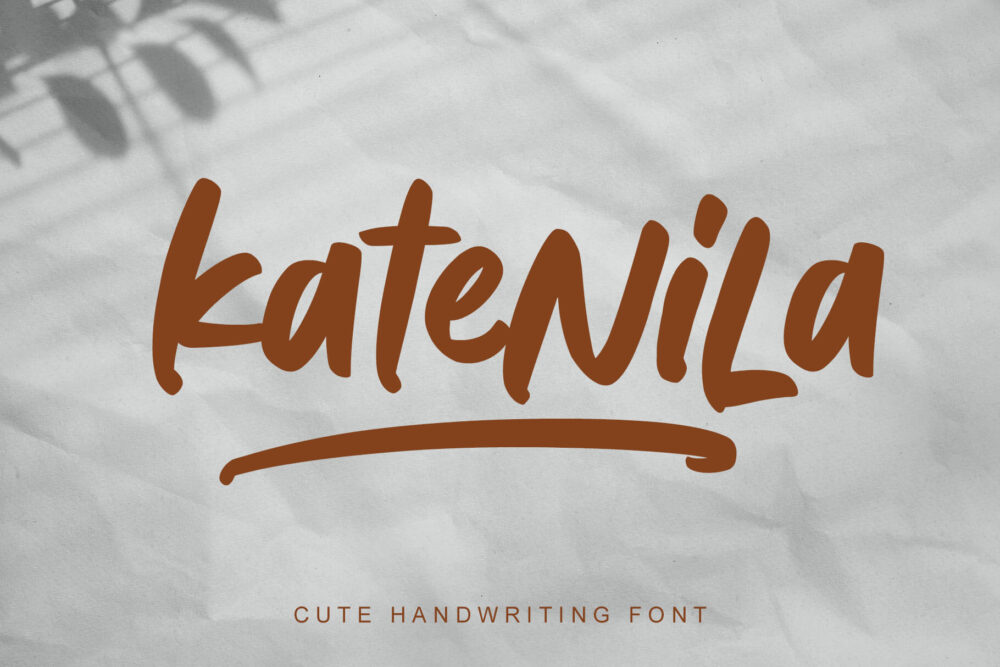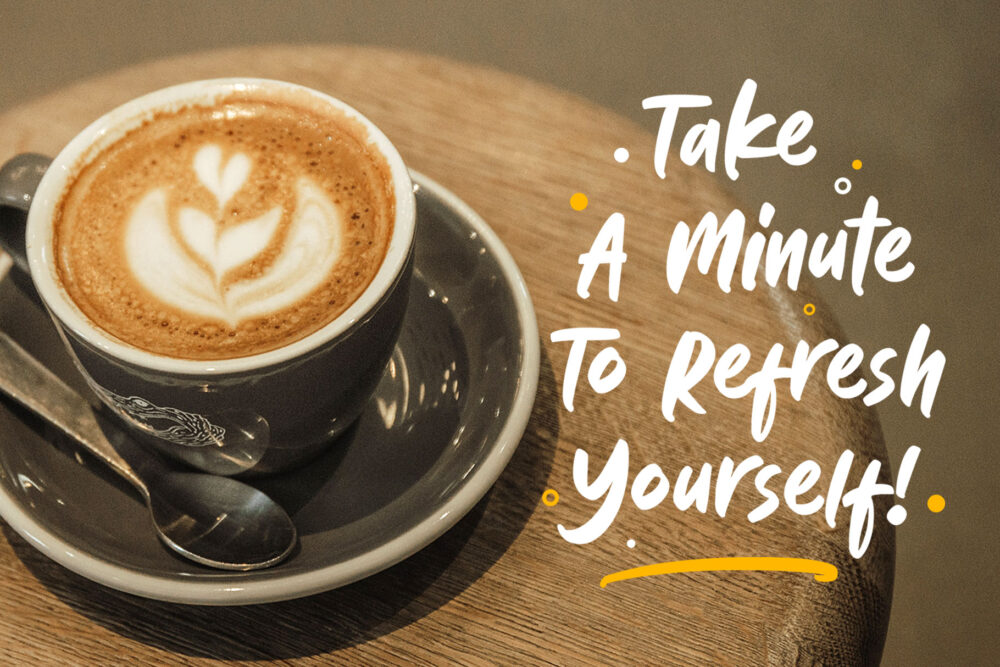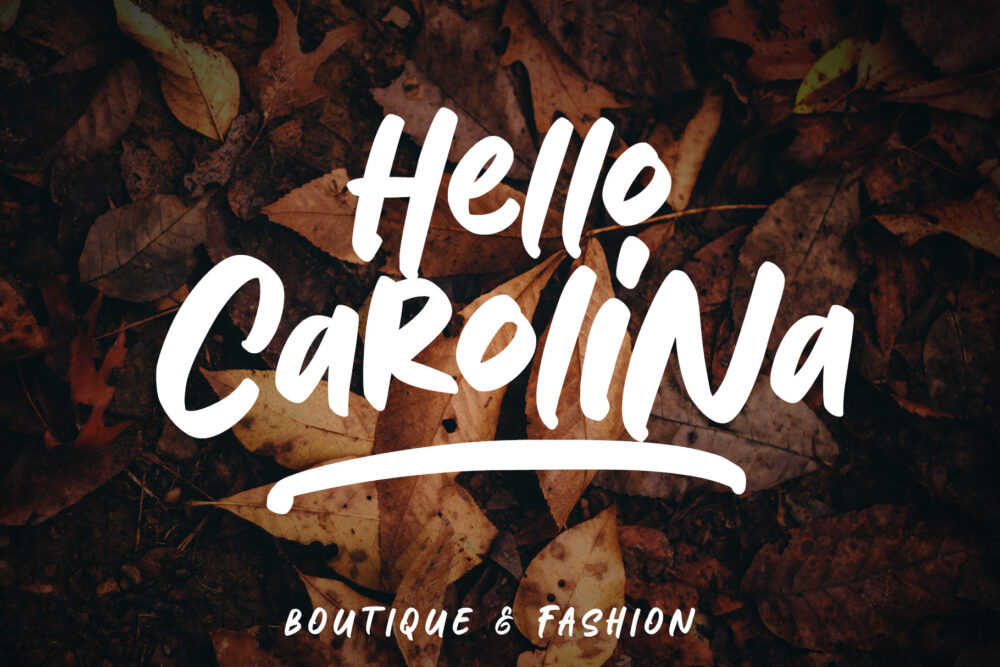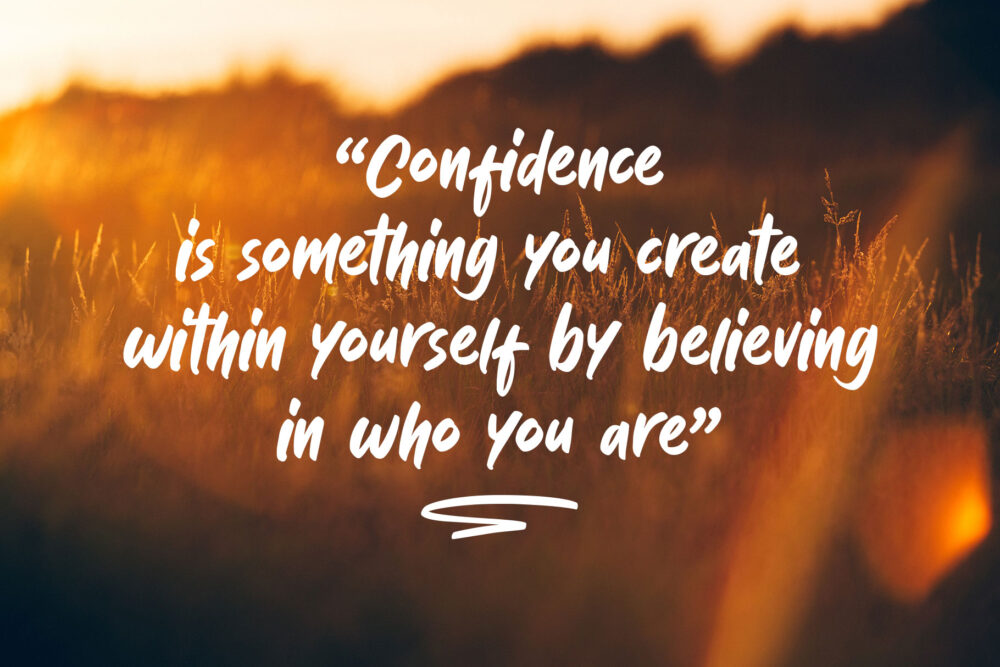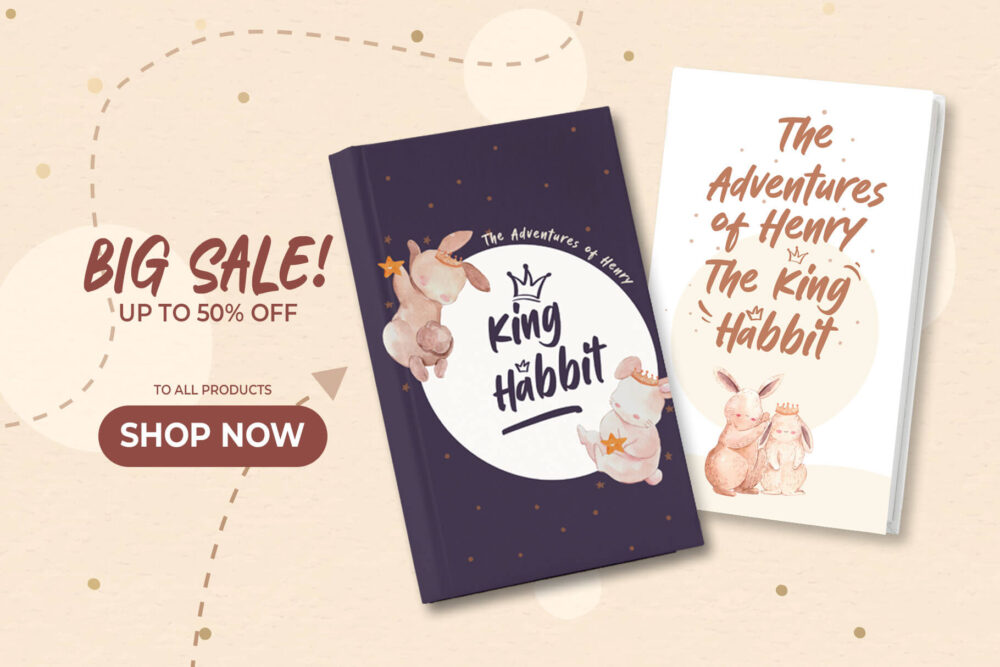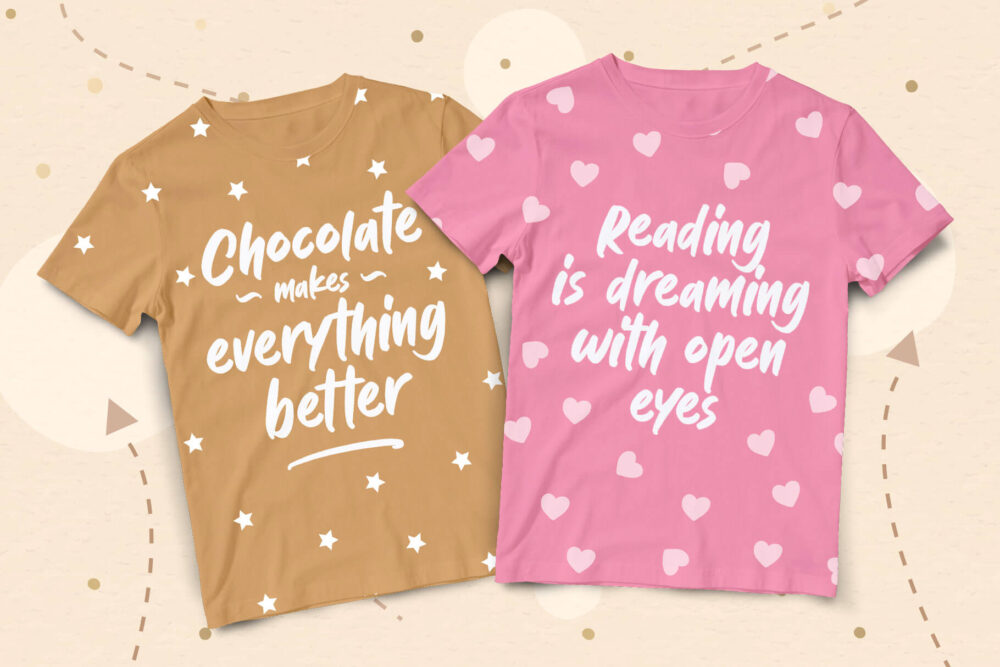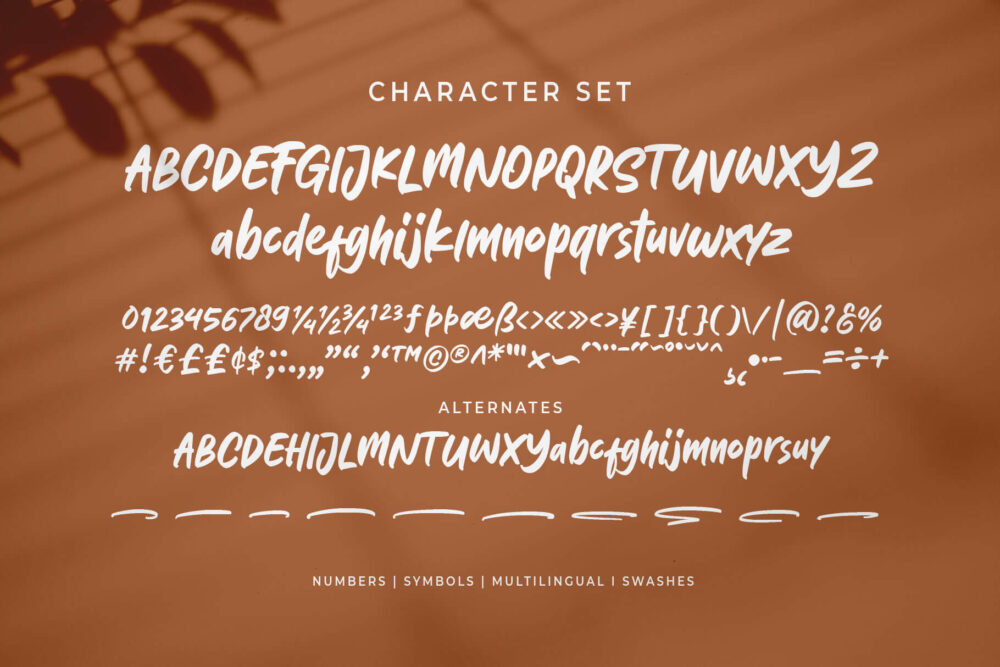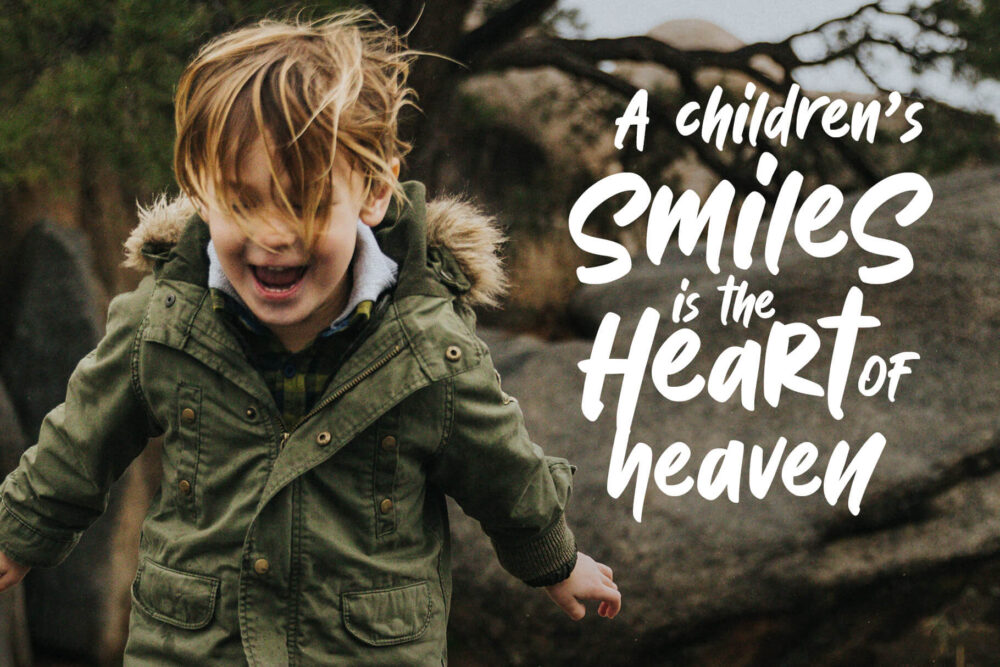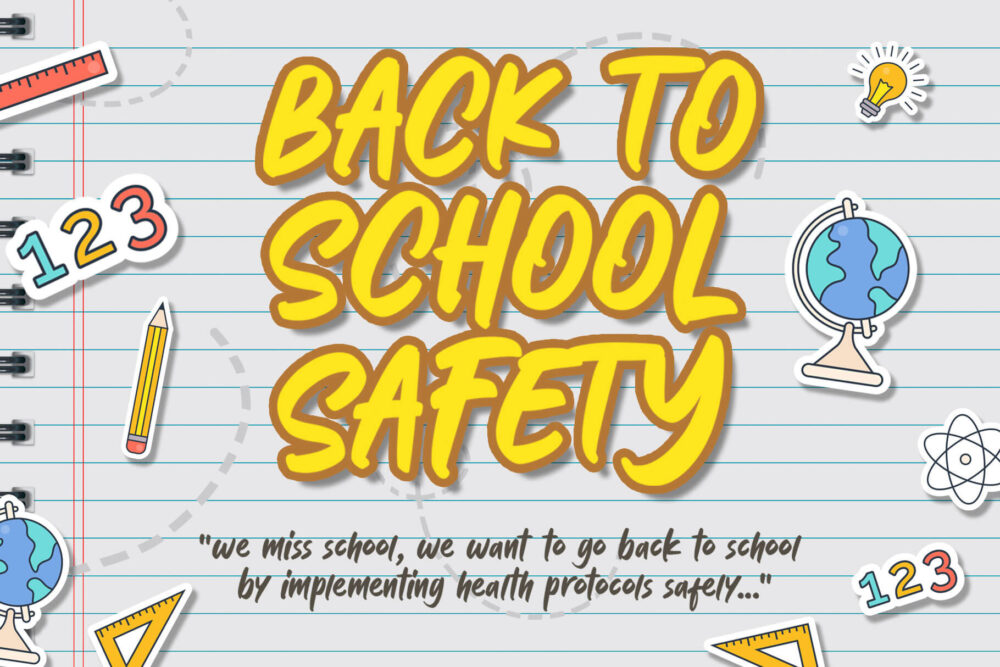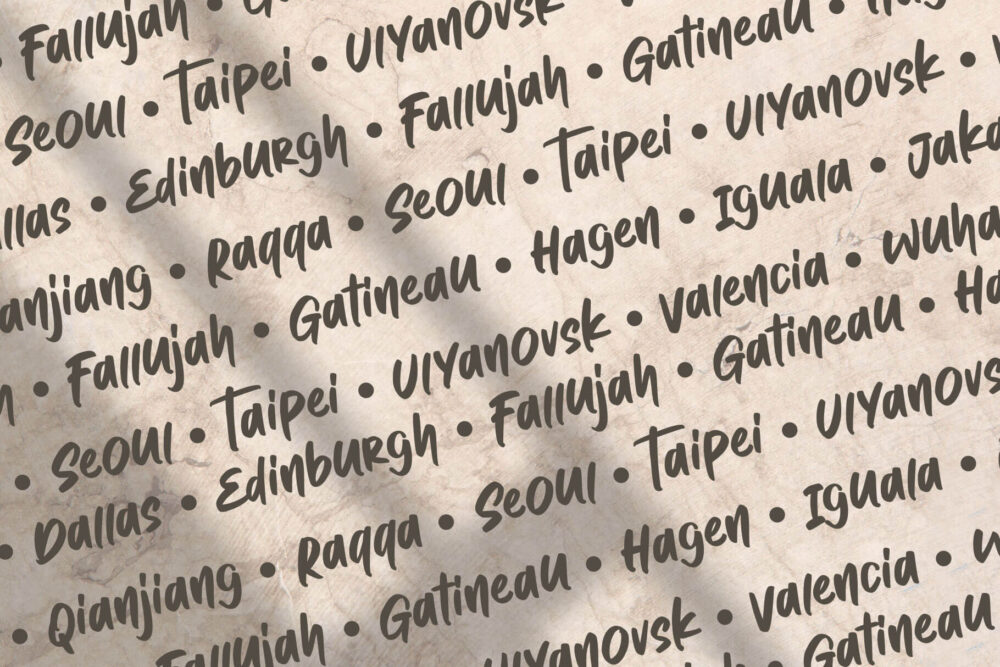
Katenila is a cute handwriting font with a joyful taste. Inspired by marker handwriting and modern calligraphy, Katenila offers the flexibility of the upper & lowercase that you can mix and match and get your typographic mood.
Katenila equipped with alternates and swash to give you more variants. This font is suitable for any design themes such as summer, bright, minimalist, holiday, feminine, and etc. Also featured with multilingual supports in 350+ glyphs total , Katenila is perfect for branding, apparel, editorial, poster, quotes, menu, and more!